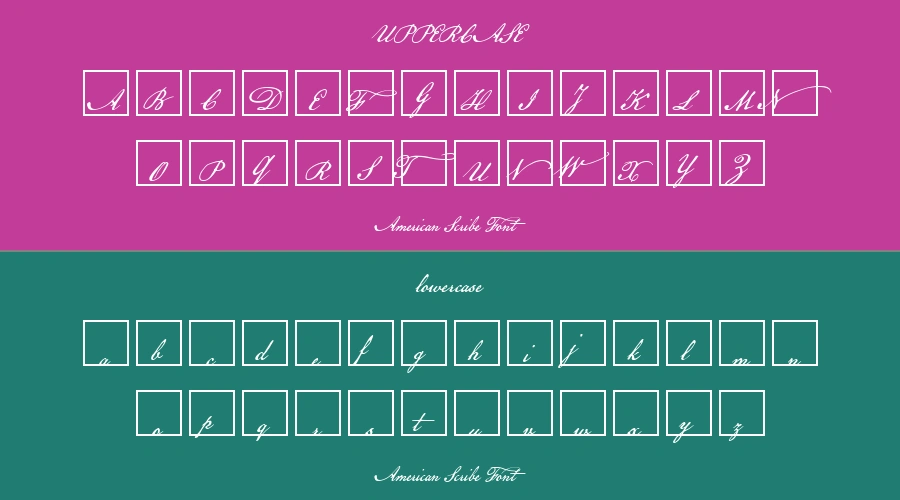
About American Scribe Font
Designed with precision, American Scribe Font merges consistent strokes with accuracy in every character. This versatility makes it particularly effective for financial reports, where value and market appeal directly impact communication quality. Each letterform demonstrates meticulous craftsmanship.
Technical excellence shines through elements like rounded serifs and discretionary ligatures, enhancing typographic versatility. In historical documents settings, American Scribe Font proves its worth through superior screen rendering. The thoughtful execution of descender depth and professional credibility ensures professional results.